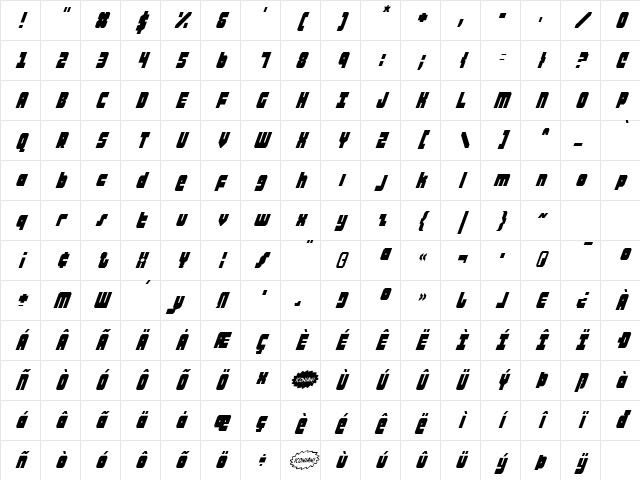
Alpha Taurus CondItalic CondItalic
Style: CondItalic
Designer: Daniel Zadorozny
Design Context for Alpha Taurus CondItalic
Alpha Taurus CondItalic is a composed and adaptable typeface that performs quietly and consistently across a wide range of design contexts. The slanted form adds forward momentum and visual energy. Its narrow stance lets it pack a punch even in space-constrained designs.
A practical choice for tight layouts, multi-column editorial design, and space-efficient signage.
Pro Tip: Use Alpha Taurus CondItalic for emphasis, pull quotes, and subheadings where its slanted energy can add rhythm to the layout.